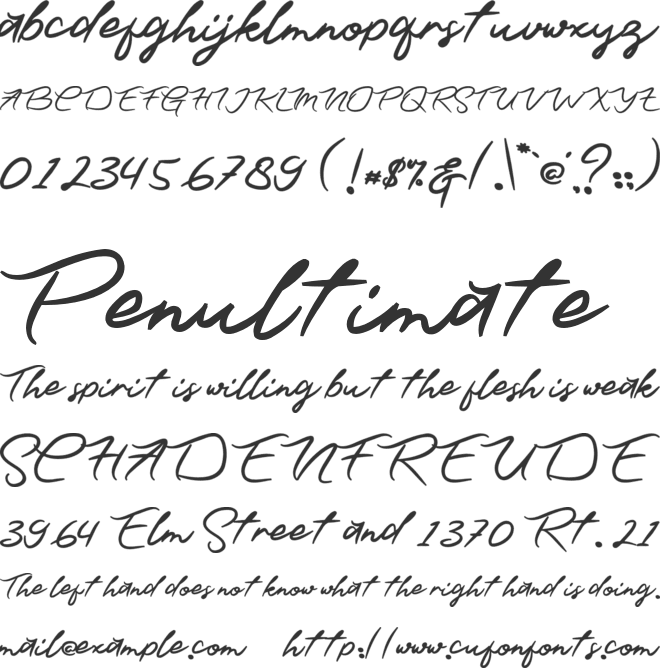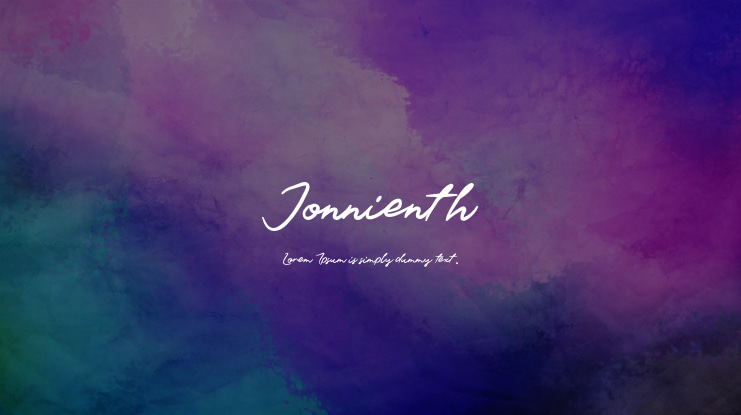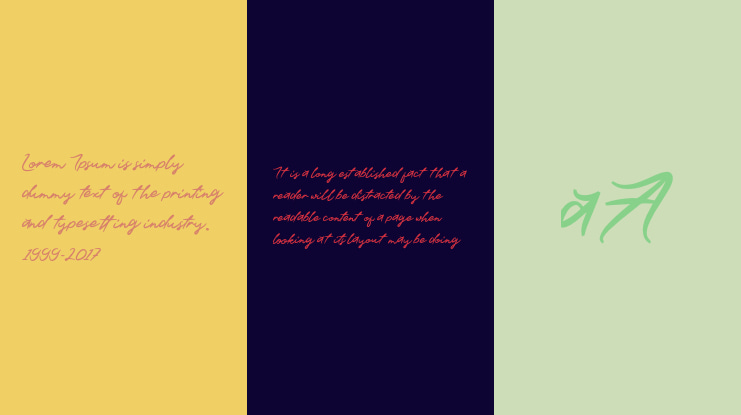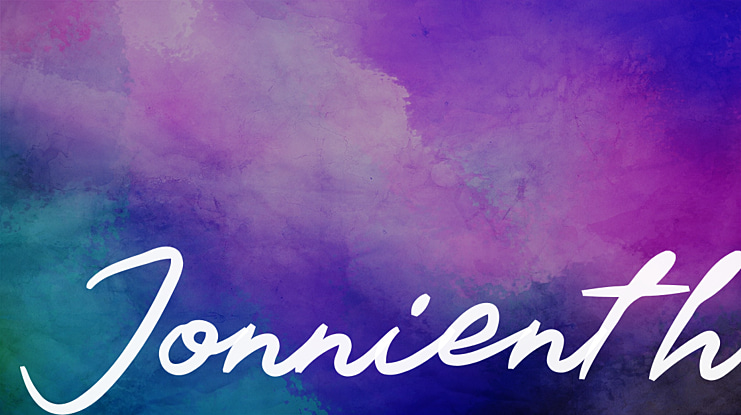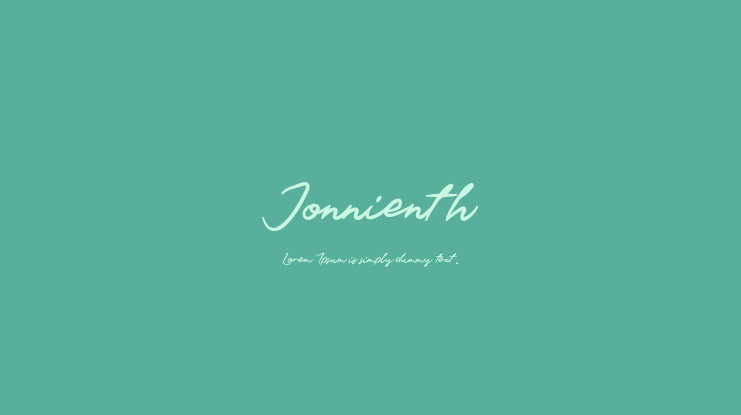
Jonnienth Font
Jonnienth A Bold Handwritten Font, A collection of letters and numbers suitable your projects also great for Logotype, Branding Design, Logo Design, Digital Lettering Arts, T-Shirt/Apparel, Poster, Magazine, Signs, Advertising Design, and any design needsClick our website :https://staircaselab.com/product/jonnienth/